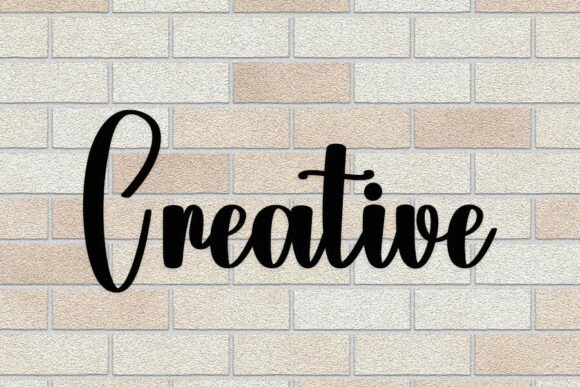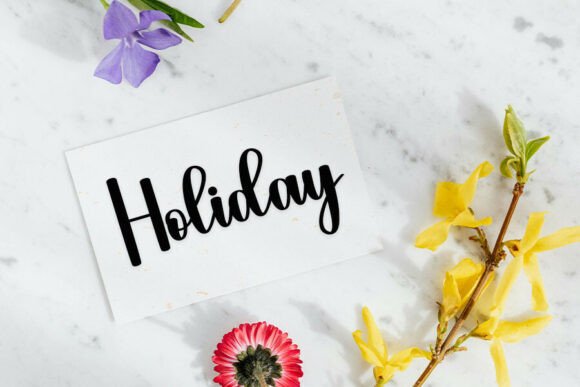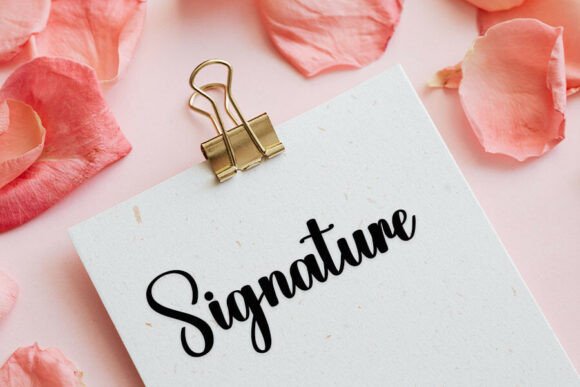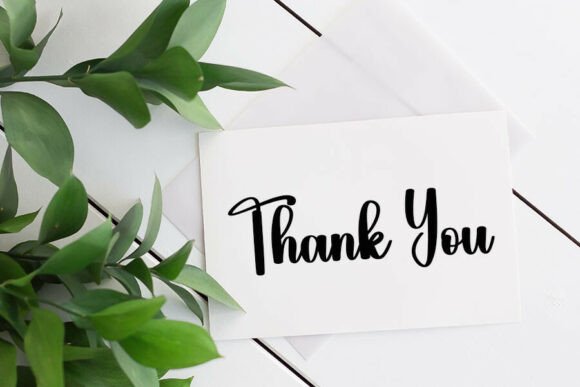
Introduction to Santa Vibes Font
As the snowflakes gently fall outside your window, and the fireplace crackles with warmth, you’re hit with the sudden urge to create something magical. You grab your favorite design tools, and the creative juices start flowing. This is the moment when the perfect font can make all the difference. Enter the enchanting Santa Vibes Font, a beautifully crafted handwritten script font that embodies the essence of a festive Christmas.
With its clean lines, elegant swashes, and lovely connection points, the Santa Vibes Font is an absolute gem for designers. It’s a design resource that’s not only visually stunning but also highly versatile, making it perfect for a wide range of creative projects, from cozy invitations to high-end holiday branding. Whether you’re working on a free download or a paid project, this font is sure to elevate your design to new heights.
Key Features of Santa Vibes Font
- High-quality design resource ideal for festive and holiday-themed creative projects.
- Unique, festive design elements, such as ornaments and icons, to enhance the overall aesthetic of your project.
- Suitable for a variety of design applications, including digital art, print materials, and web design.
- Perfect for adding a touch of holiday cheer to your design project, with a fun and playful vibe.
Honest Review: Santa Vibes Font
I recently stumbled upon the Santa Vibes Font while searching for a design resource to give my creative project a festive touch. I was excited to dive in and see what this font had to offer.
The first thing that caught my attention was the high-quality design of the font. It’s clear that the creators put a lot of effort into crafting a unique and stylish typeface. The Santa Vibes Font comes in both regular and bold weights, making it perfect for a variety of creative projects.
Here are some things that work well about the Santa Vibes Font:
- ✨ Unique and stylish design
- ✨ High-quality and crisp font
- ✨ Suitable for a wide range of creative projects
- ⚠️ The font only comes in two weights (regular and bold)
- ⚠️ There are no italics or obliques available
- ⚠️ The font may not be suitable for complex or large-scale designs
Overall, I’m impressed with the Santa Vibes Font. It’s a great free download for anyone looking to add a touch of holiday cheer to their design. With its transparent background and high-quality design, it’s perfect for a variety of creative projects.
Tips for Getting the Most Out of the Santa Vibes Font
To get the most out of the Santa Vibes Font, use it for creative projects that require a festive and playful tone, such as holiday cards, gift tags, or social media graphics. You can also use it to create a consistent brand identity across your marketing materials. Experiment with different font sizes, colors, and styles to add visual interest to your designs.
The Santa Vibes Font is commonly used for:
- Holiday cards and gift tags
- Brand identity and logos